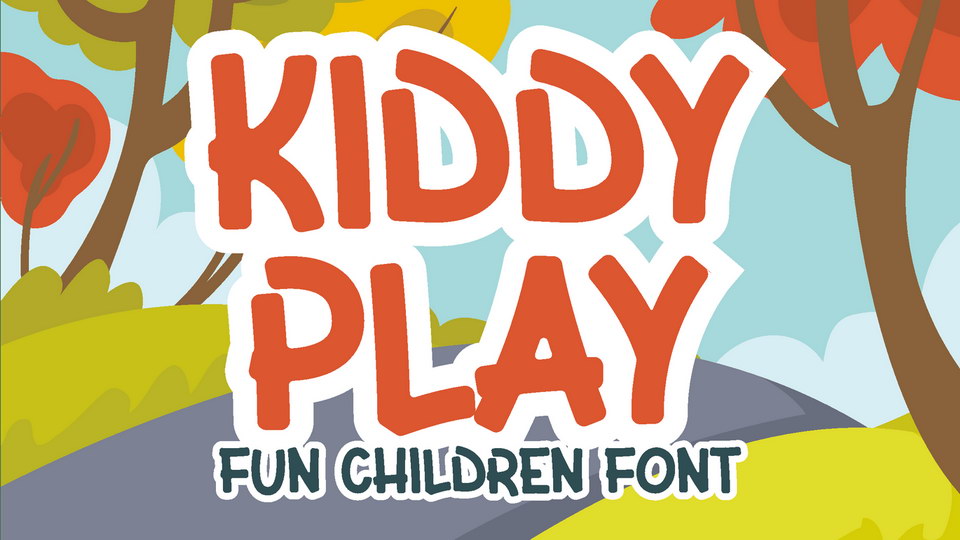
Download Kiddy Play font, a playful hand lettered font. Having a blocky shape with rounder corner and fun baseline, will make Kiddy Play emphasize the happiness on every word you put on your project.